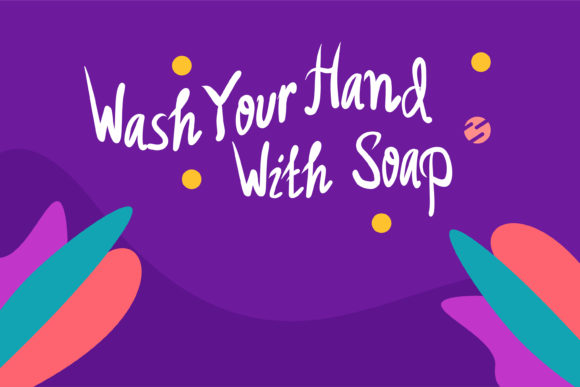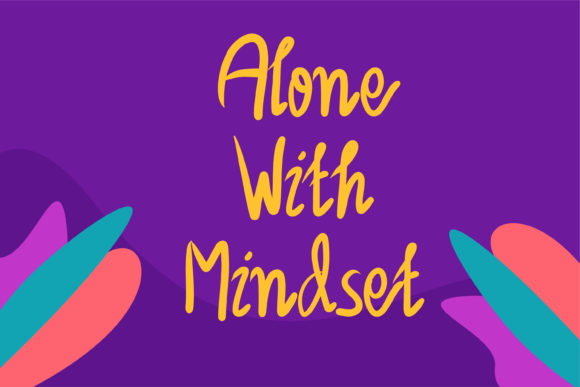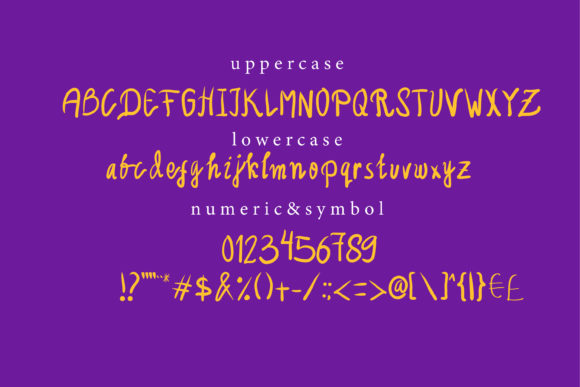
Fisher Font
About Fisher Font
Fisher is a unique handwritten font that brings a cool and contemporary vibe to your design projects. With its distinctive character shapes and stylish appearance, Fisher adds a touch of creativity and originality to any design.
The simplicity of Fisher’s letterforms makes it versatile and easy to use. It can be mixed and matched with other fonts or used as a standalone element to create eye-catching compositions. Whether you’re designing posters, logos, greeting cards, or digital artwork, Fisher adds a cool and modern twist that catches the eye.
One of the great advantages of Fisher is its ability to adapt to various craft designs. Its handcrafted feel and natural flow make it a great choice for DIY projects, scrapbooking, or any creative endeavor that requires a personal touch. Fisher’s organic strokes and playful charm lend themselves well to creating visually appealing and unique designs.
The clean and legible nature of Fisher ensures that your message comes across clearly and effectively. Whether you’re using it for headlines, captions, or body text, Fisher maintains readability while still exuding a sense of creativity and style.
Additionally, Fisher offers a range of stylistic alternates and ligatures, allowing you to customize the appearance of your text and add more visual interest. This gives you the opportunity to create truly unique and personalized designs that reflect your artistic vision.
In summary, Fisher is a versatile and cool handwritten font that can enhance your craft designs and bring a contemporary flair to your projects. Its simplicity and ease of use make it a great choice for various applications, and its unique character shapes make it stand out from the crowd. Whether you’re working on print or digital designs, Fisher is sure to add a cool and creative touch to your work.